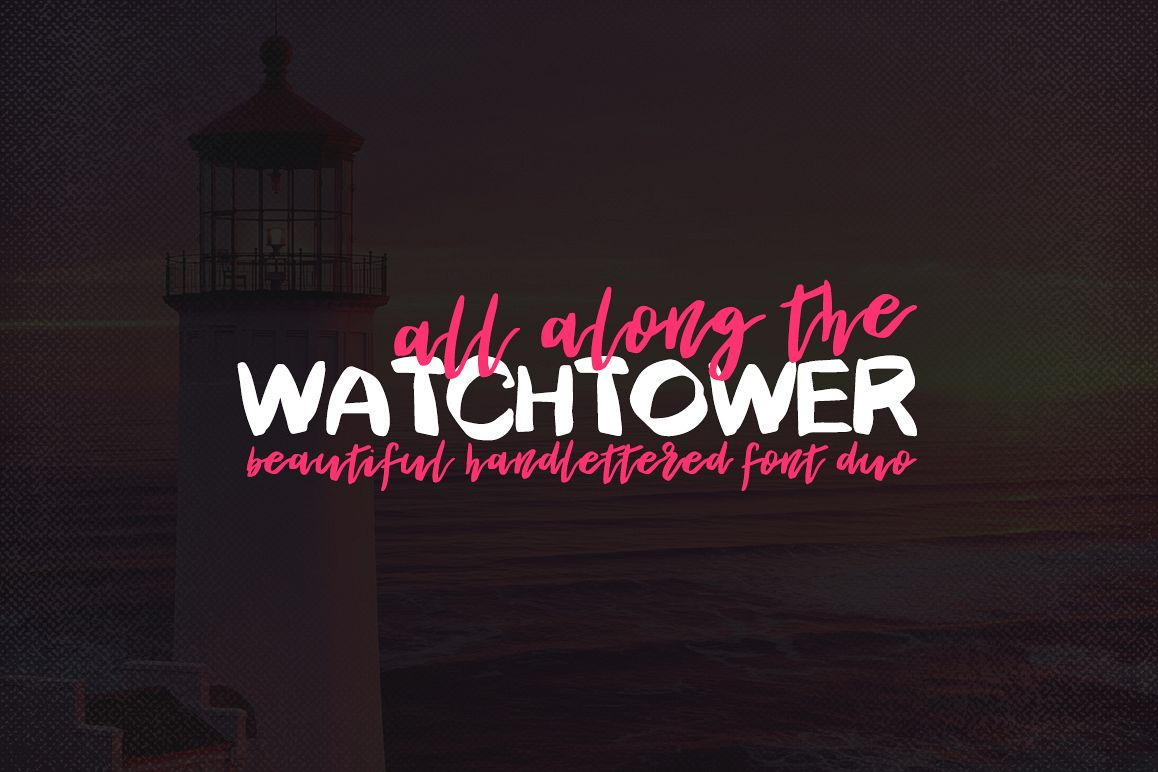
Watchtower handwritten script DUO
Watchtower DUO - a new fresh handmade font. It has a perfectly paired complimentary font "HeyBaby". Very suitable for greeting cards, branding materials, business cards, quotes, posters, and more!